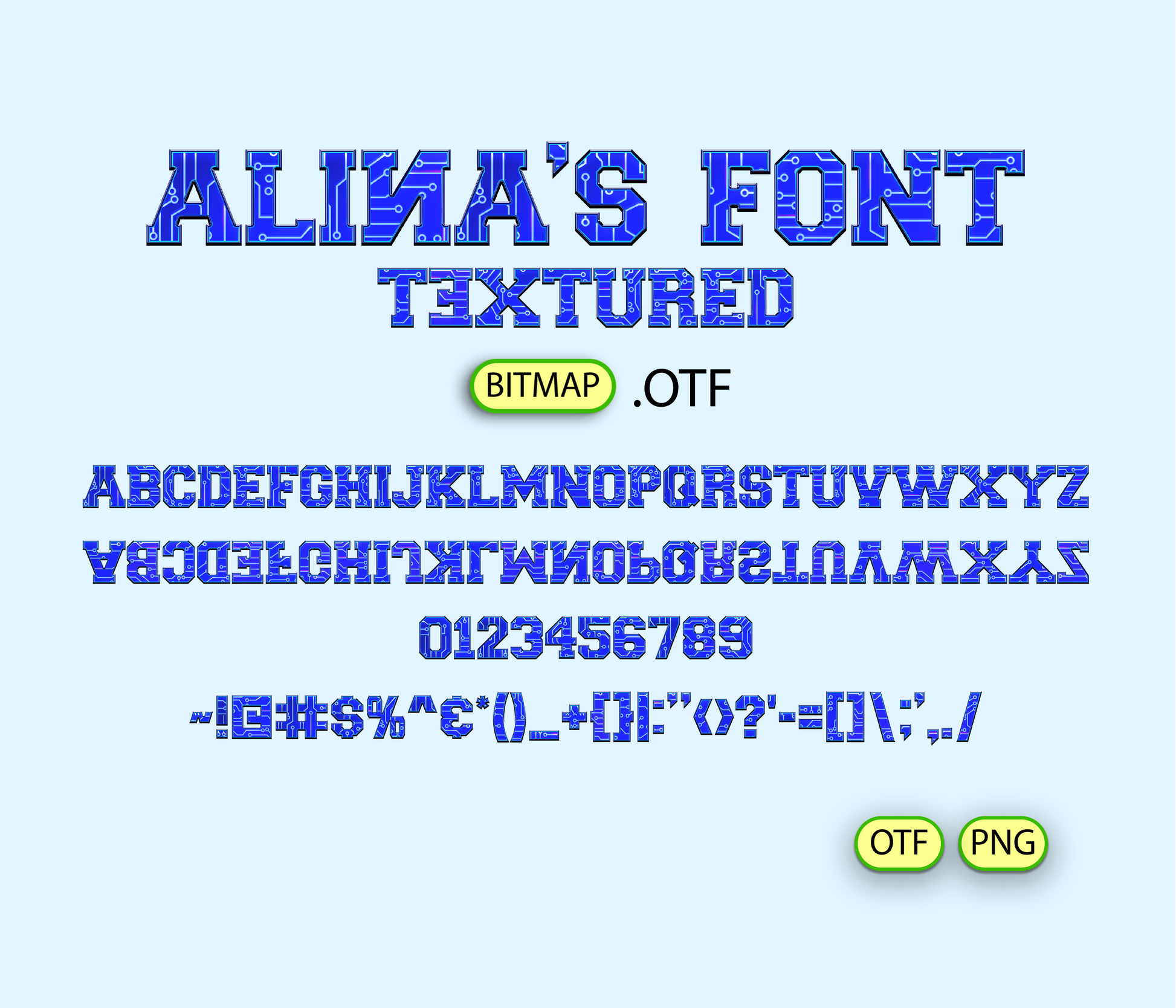
Flipped Orientation Font Textured
Step into the puzzling world of reversed viewpoints with our Flipped Orientation Font Textured, capturing the essence of mirror-image layouts and unconventional spatial arrangements. Perfect for avant-garde designers, celebration organizers, media makers, and artistic practitioners, this font brings the striking, thought-provoking character of inverted visual tales to your projects. Create standout invitations, commercial products, or web content with the captivating presence of perspective-shifting narratives.
Bold Typography for Alternative Design & Creative Projects
Our Flipped Orientation Font Textured features commanding, stylized letterforms with weathered surface patterns reflecting the world of rotated compositions and paradoxical spatial environments.
- Event Promotions: Create standout invitations, displays, and promotional materials for artistic gatherings, conceptual exhibitions, and creative meetups that capture the spirit of alternative visual entertainment
- Merchandise Design: Perfect for apparel, wall art, adhesive graphics, and collectibles that showcase the striking aesthetic of reversed layout themes
- Digital Media: Enhance internet sites, content platforms, and social channels with thought-provoking header designs and imagery that express the fascination of altered viewpoints
- Creative Content: Add signature flair to experimental artwork, conceptual designs, and imaginative projects inspired by mirror-image dimension chronicles
- Personal Projects: Bring perplexing vitality to memory albums, handcrafted items, and living space decorations inspired by the world of paradoxical orientation concepts
Our font pays tribute to the world of experimental visual principles and alternative aesthetic culture, empowering your projects with its striking and thought-provoking character. Whether crafting artistic materials, designing conceptual products, or adding an alternative touch to personal projects, this font communicates the spirited essence of perspective-shifting entertainment. Ready to inject reversed intrigue into your creations? This font is your key to standout, impactful design.